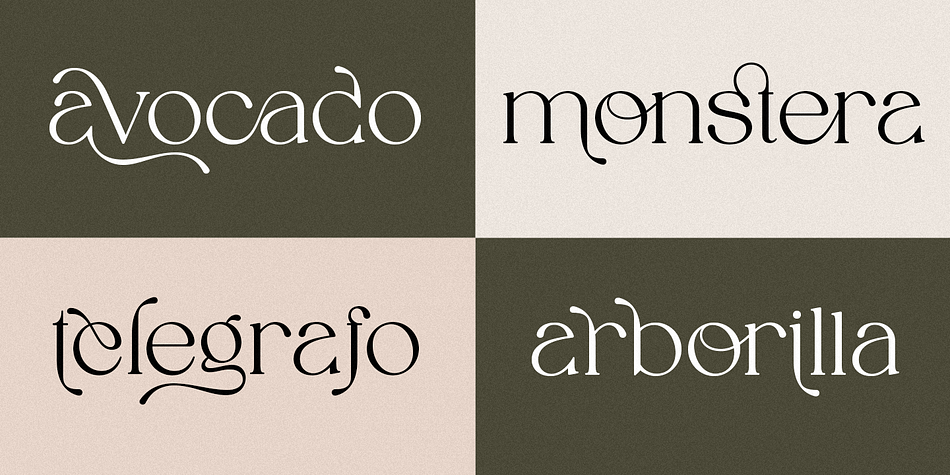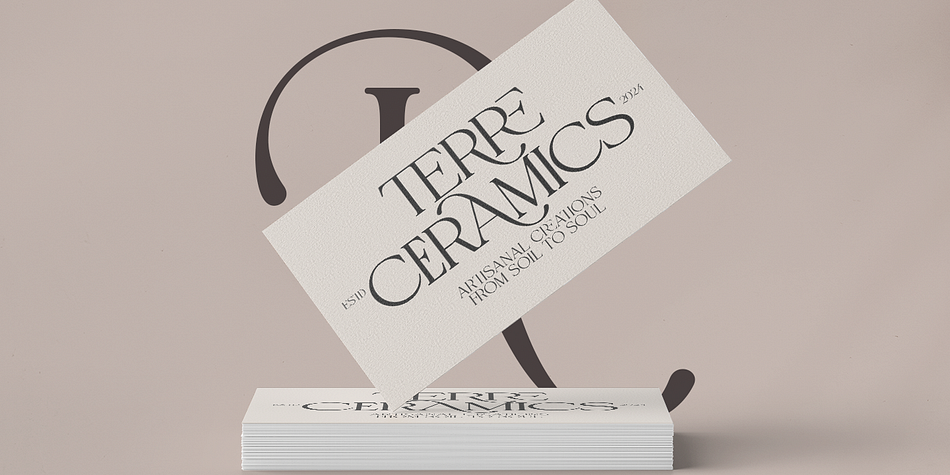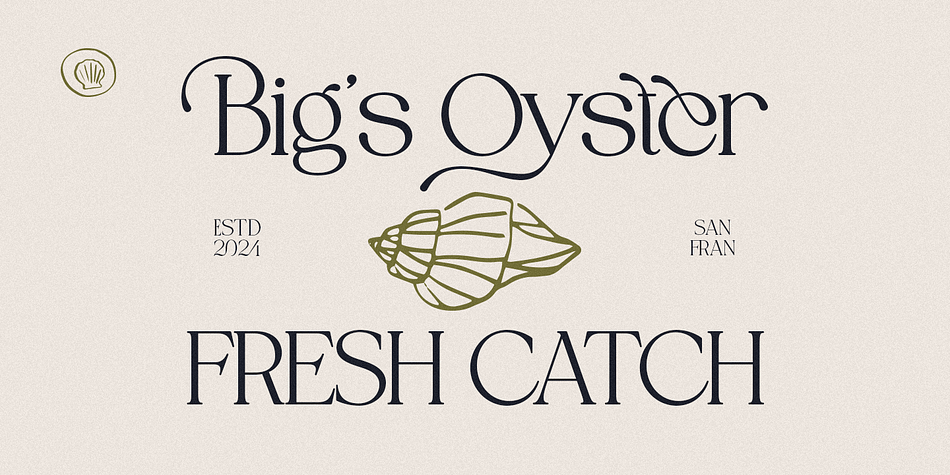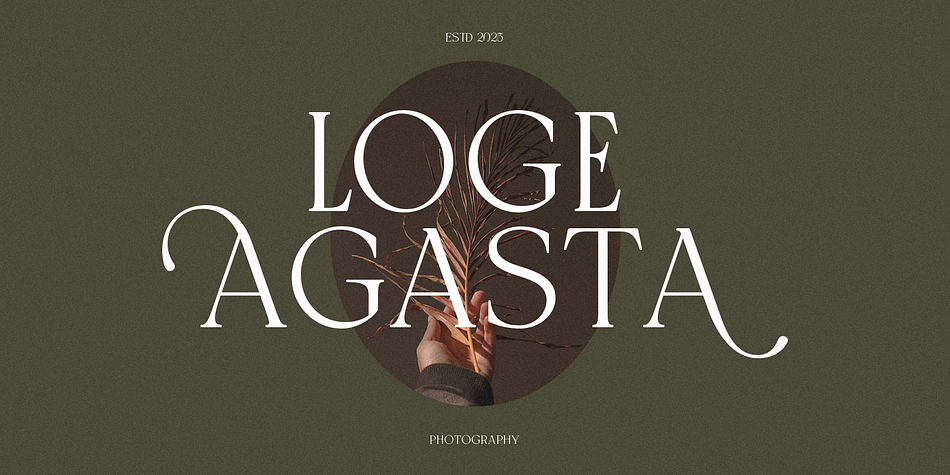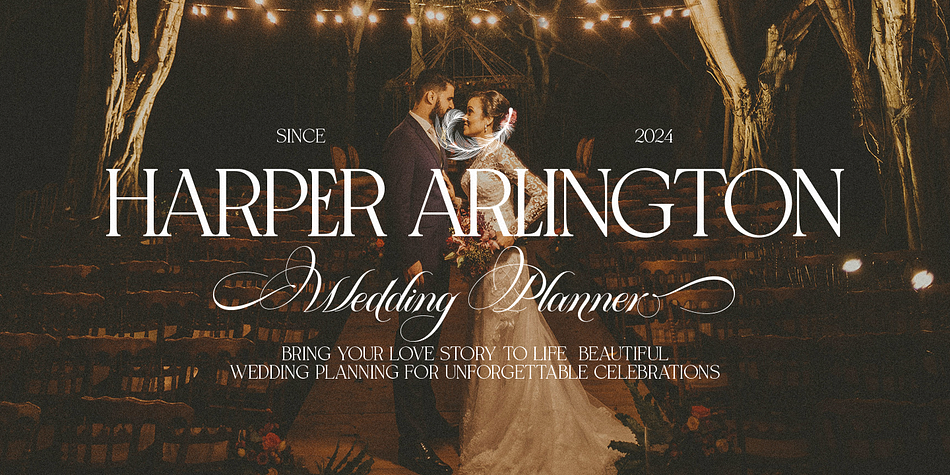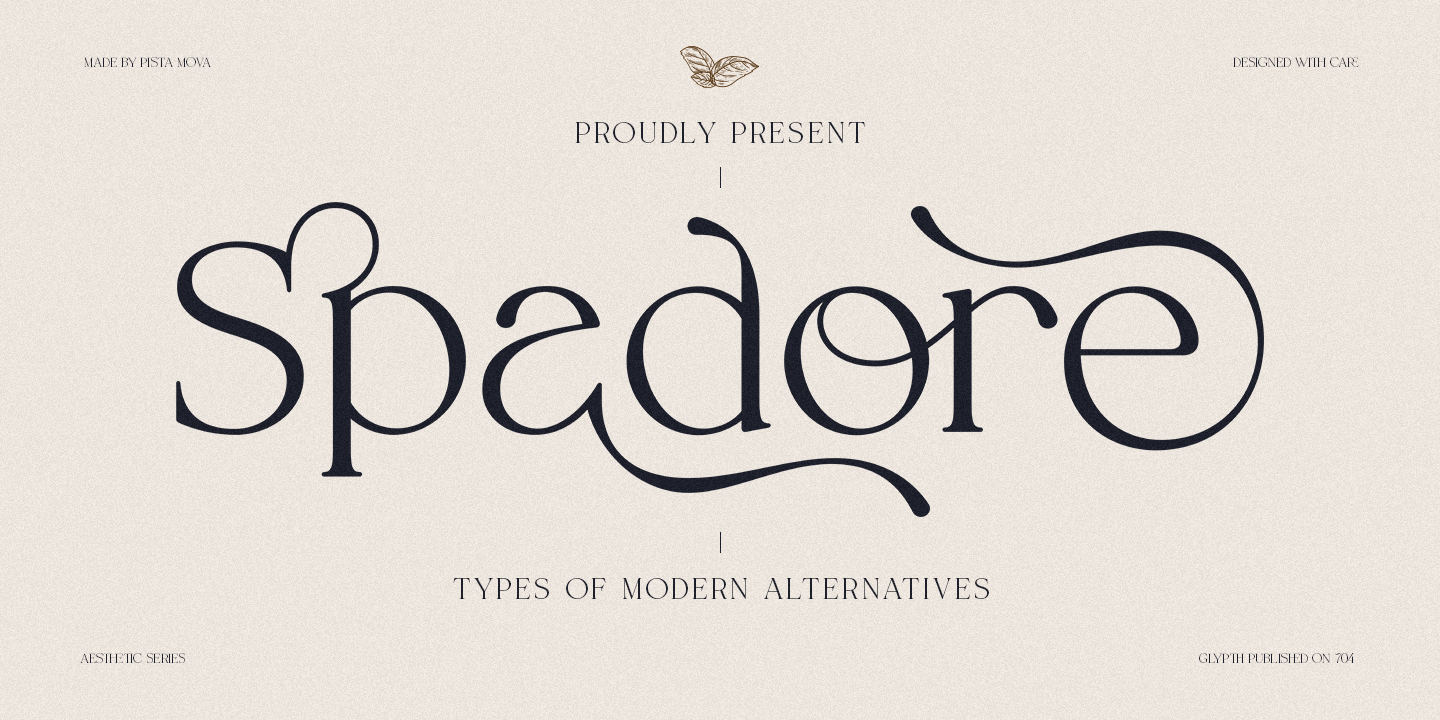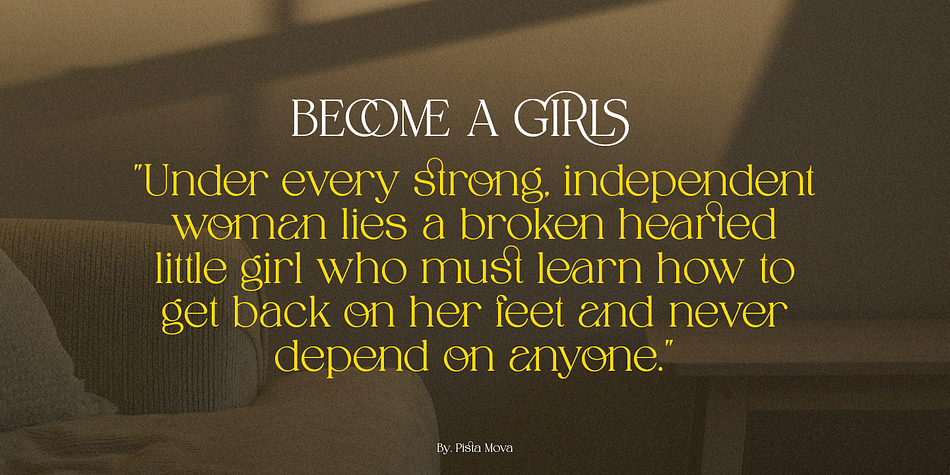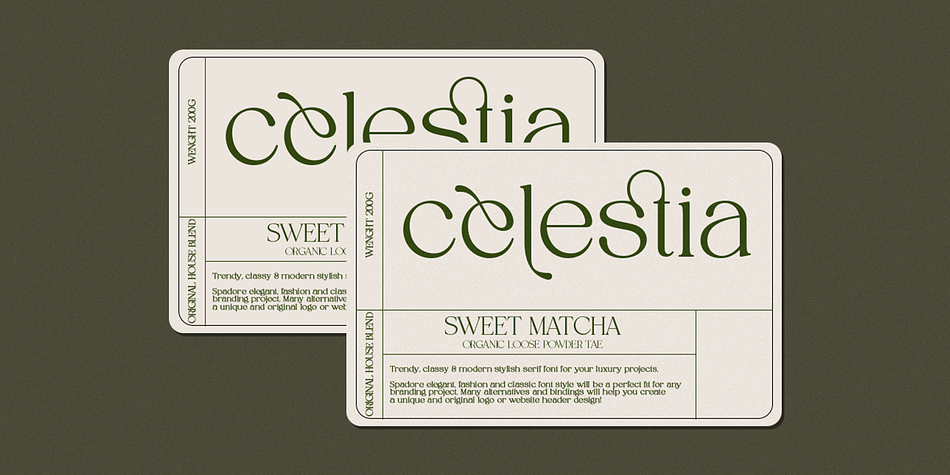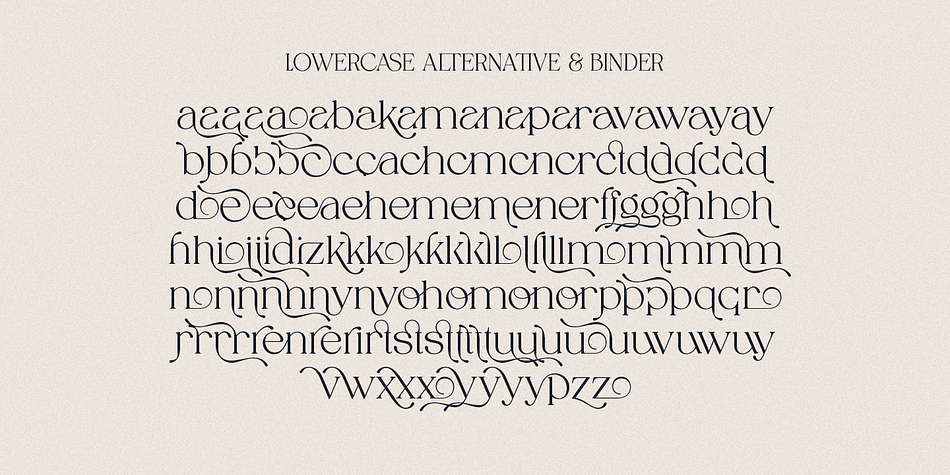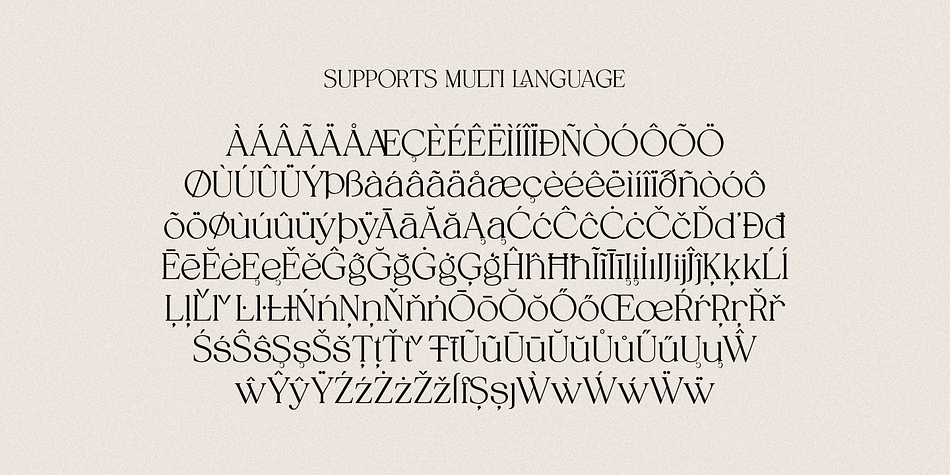
Spadore
Spadore is a serif font family published by Pista Mova.
Trendy, elegant, luxury, retro & modern style sans serif fonts for your new luxury projects. The stylish, creative and classic style of the Spadore font will suit any modern or classy branding project. Many alternatives and binders will help you create a unique and original logo or website header design! Enjoy :)
Multilingual support
Alternative characters
Lots of ligatures
Perfect for modern branding projects!